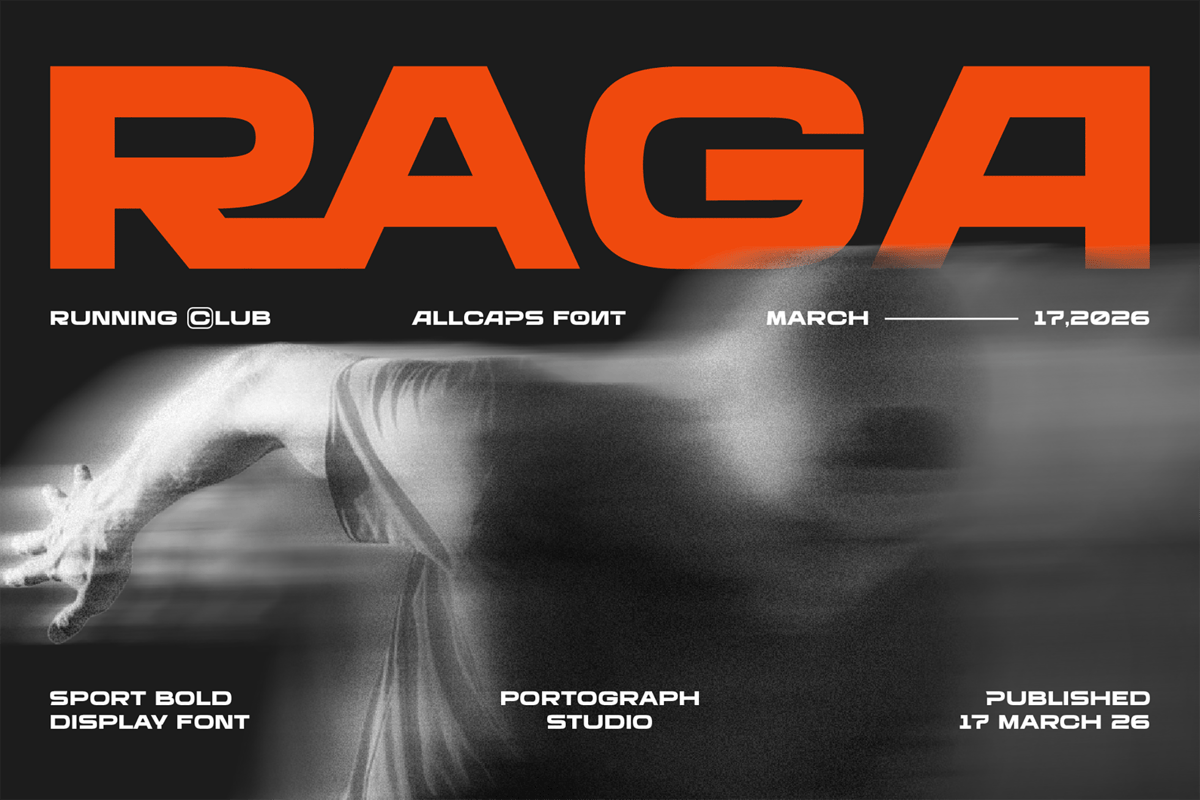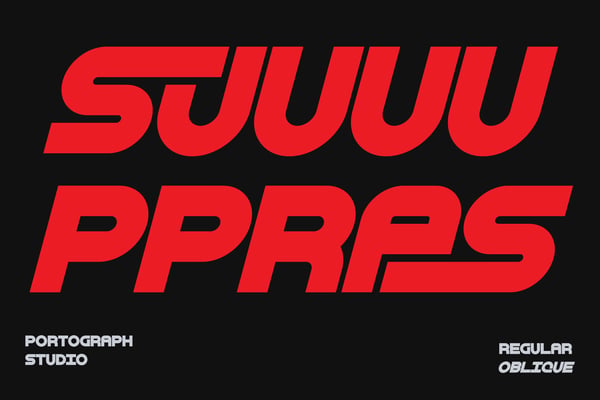
Raga - Sports Font
RAGA delivers explosive visual impact with its bold futuristic design—perfect for athletic brands that demand attention. This powerful display font combines strong geometric structure with sharp edges and dynamic letterforms to create an energetic presence that commands the spotlight. Drawing inspiration from sports, racing, and fitness culture, RAGA transforms ordinary text into high-performance typography that radiates speed, strength, and modern athleticism. The aggressive styling and contemp...